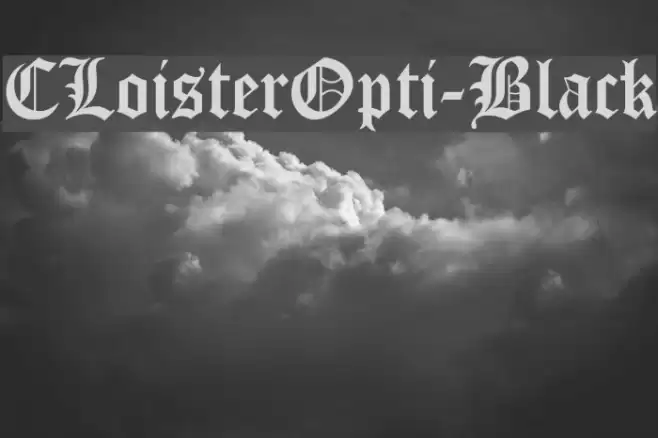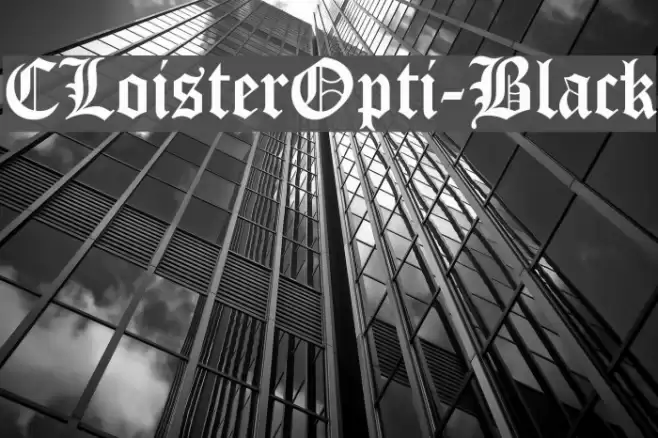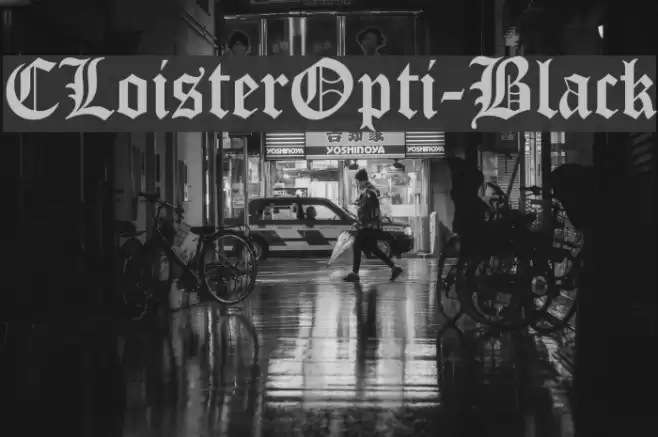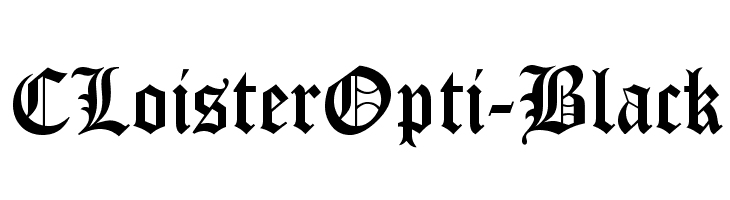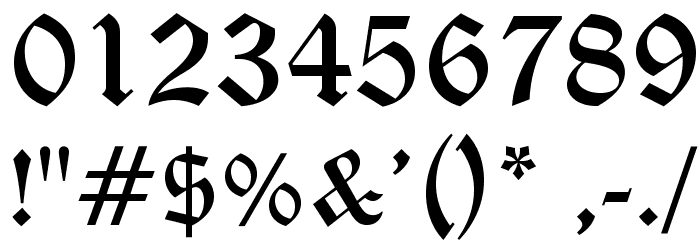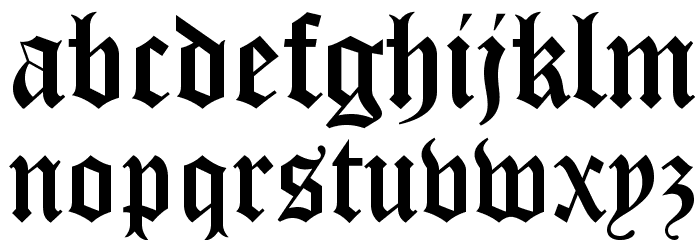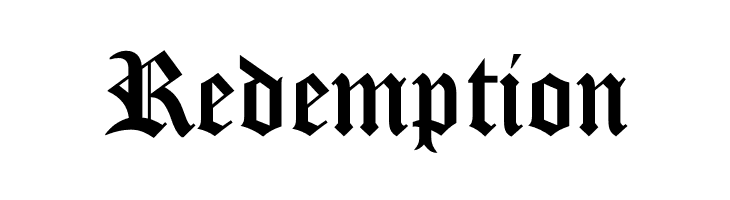
CLoisterOpti-Black Font
CLoisterOpti-Black Description
This font exudes a classic and historical charm, reminiscent of medieval manuscripts and traditional calligraphy. The characters are intricately designed with sharp, angular strokes and elaborate serifs, giving it a distinct Gothic appearance. The uppercase letters are particularly ornate, featuring flourishes and embellishments that enhance their decorative appeal. The lowercase letters maintain a consistent style, with a bold presence and strong vertical emphasis. Numbers and special characters are crafted with the same attention to detail, ensuring a cohesive look across all glyphs. This font's bold weight and high contrast between thick and thin strokes make it stand out, ideal for creating a dramatic and impactful visual impression.
A bold, Gothic-style font with intricate serifs and high contrast, perfect for dramatic designs from Uncategorized fonts.
- Proposed Projects: Ideal for historical or fantasy-themed projects, book covers, posters, and branding that requires a touch of elegance and tradition.
- Overall Style: Classic
- Use Case: Headlines, Logos, Decorative purposes